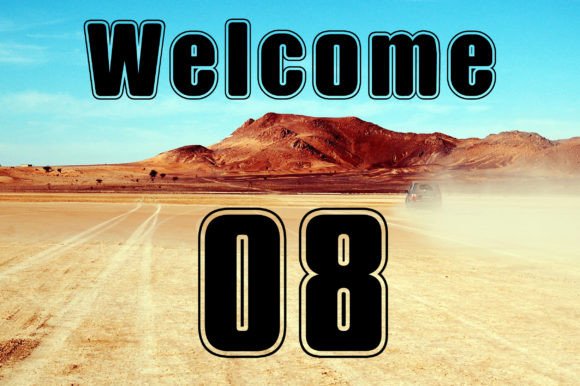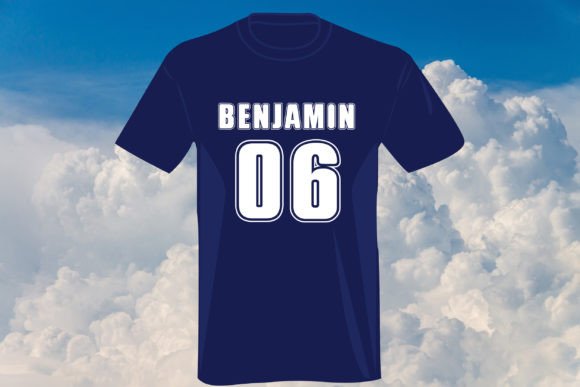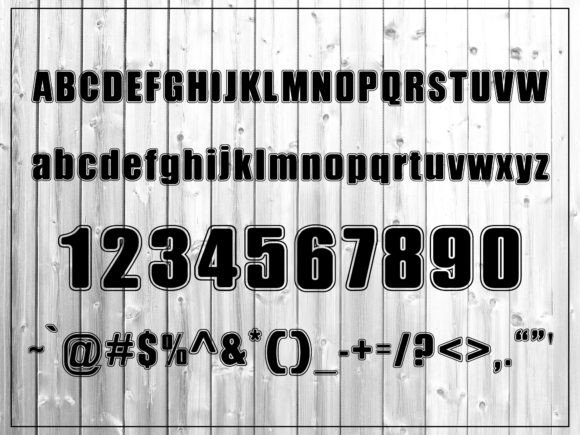
Introduction to Ds Amarasiri Font Font
Fonts play a crucial role in design, and the Ds Amarasiri Font font is a typeface that brings both character and versatility to any project. Whether you’re working on a branding project, a website, or a print design, the Ds Amarasiri Font font offers a unique style that can elevate your work.
Introducing DS-Amarasiri, an exhilarating display typeface meticulously crafted to elevate the appearance of athletic wear, university logos, and college jerseys.
This dynamic font captures the essence of sporting fervor, injecting vitality and splashes of pride into any design project Elevate your game by incorporating DS-Amarasiri into all your sport-related outfits and infuse any creative endeavor with an electrifying energy that commands attention.
Key Features of Ds Amarasiri Font Font
Why Choose Ds Amarasiri Font Font?
The Ds Amarasiri Font font is more than just a typeface – it’s a design tool that helps you communicate your message with style and clarity. Its unique character set and versatile design make it suitable for a wide range of applications, from elegant invitations to bold headlines.
With its carefully crafted letterforms and balanced proportions, the Ds Amarasiri Font font ensures readability and visual appeal across all mediums.
What makes Ds Amarasiri Font font special?
The Ds Amarasiri Font font stands out with its unique design, exceptional readability, and versatility across various design applications.